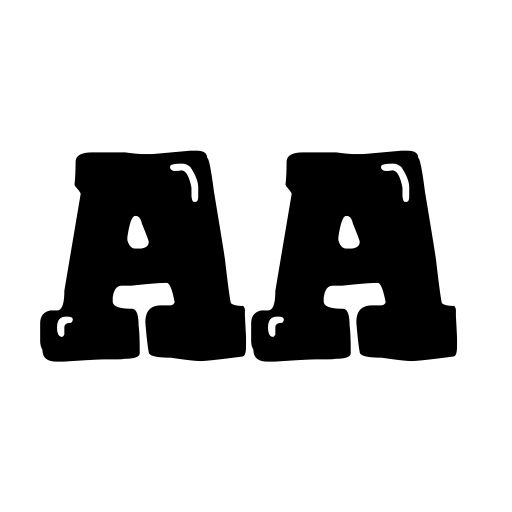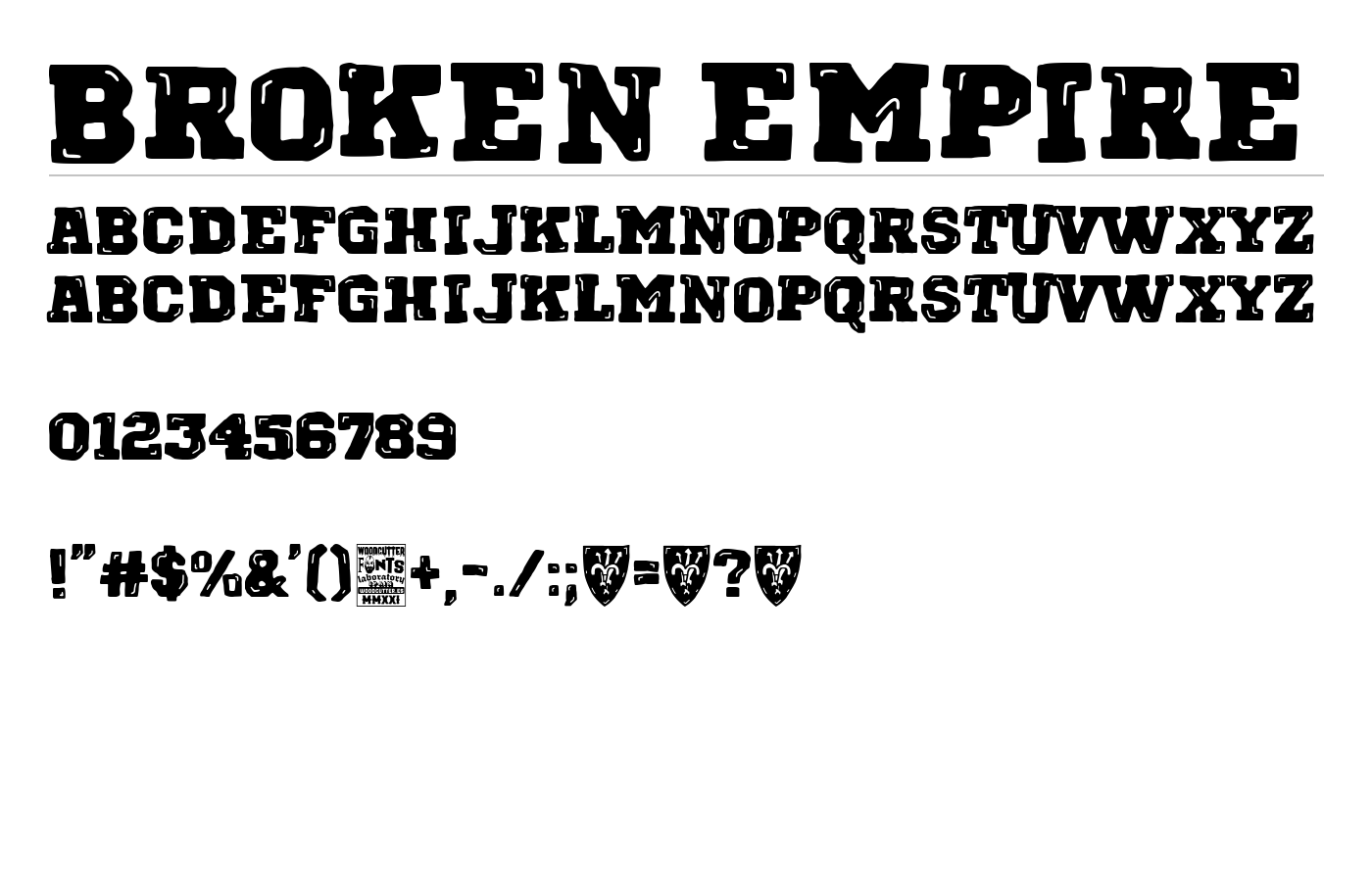
Broken Empire is a bold, slab serif display font with a rugged, distressed texture that gives it a vintage, Western-inspired character. Its thick, blocky letters and irregular edges create a strong, impactful look, making it ideal for headlines, posters, and branding that aim to convey toughness, adventure, or a historic, gritty vibe.
Broken Empire Font
About Broken Empire Font